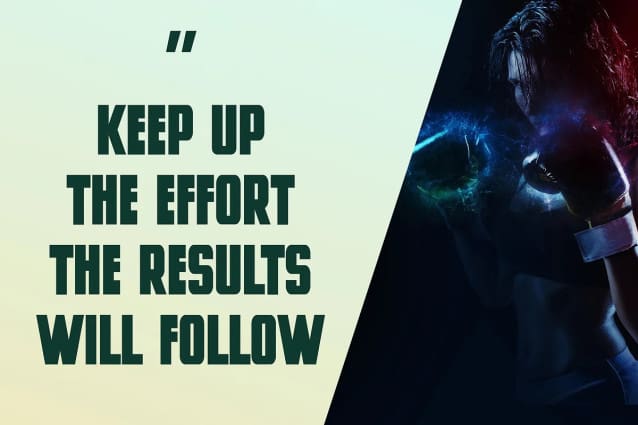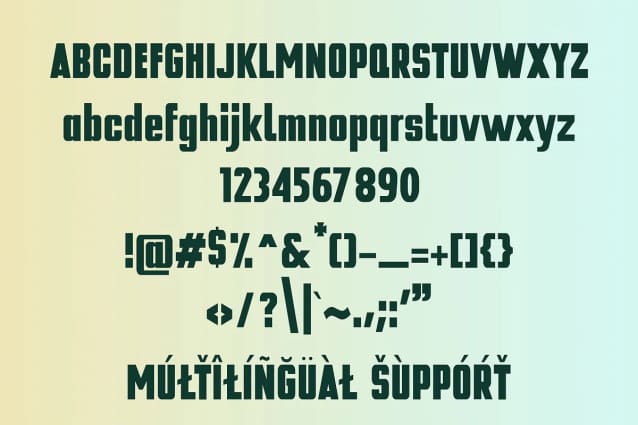
Echelon Font
Echelon Font, a simple and display font. So perfect for you who needs a typeface for logo designs, magazine, social media, brochure, and many more.